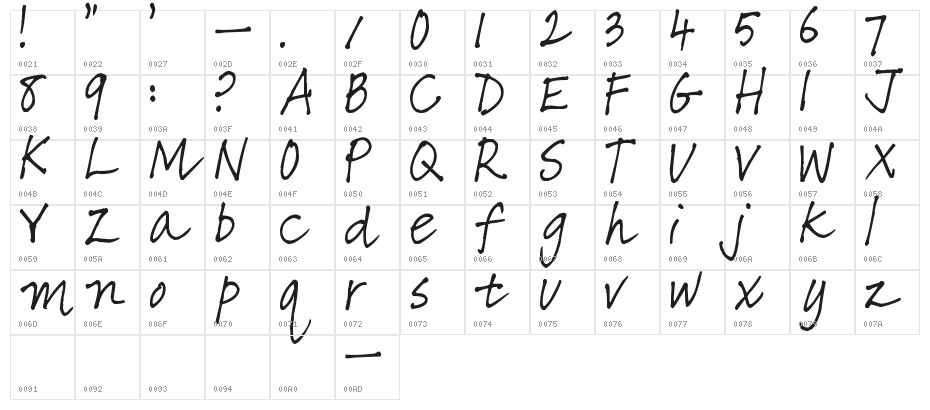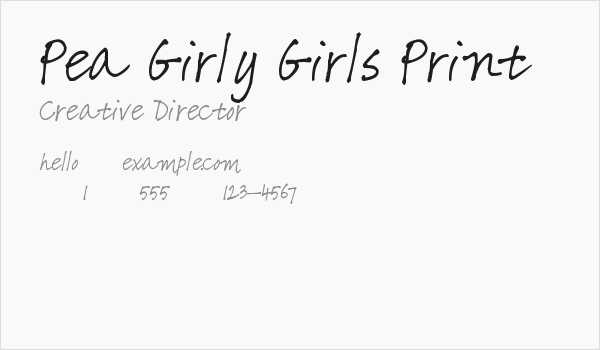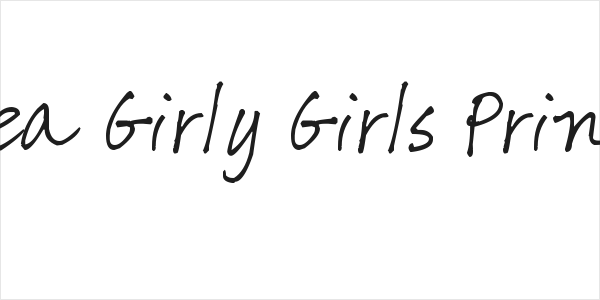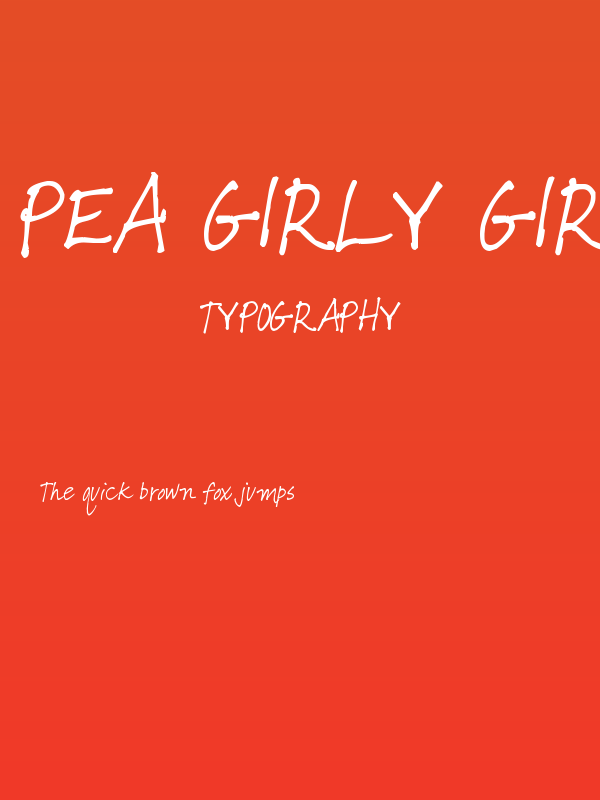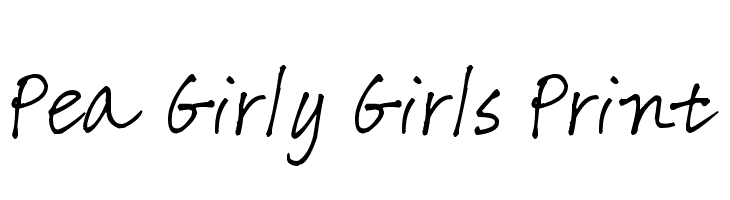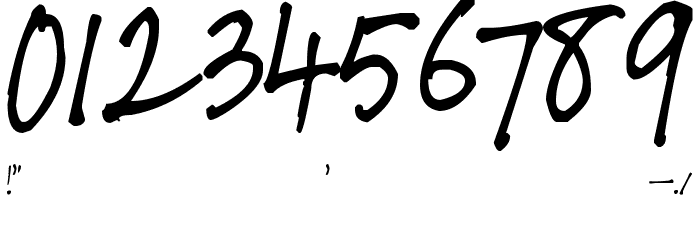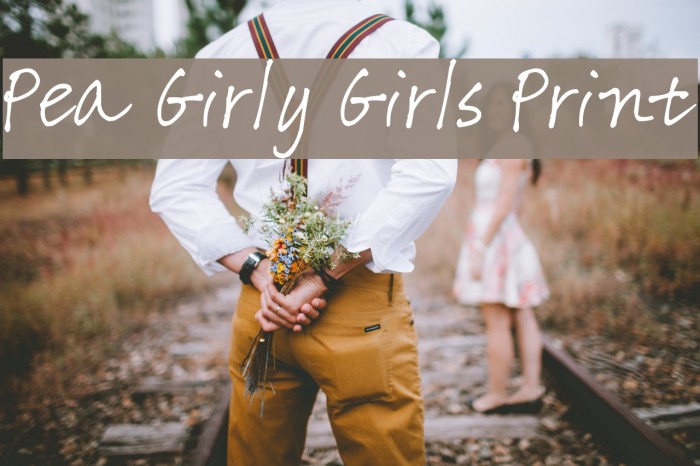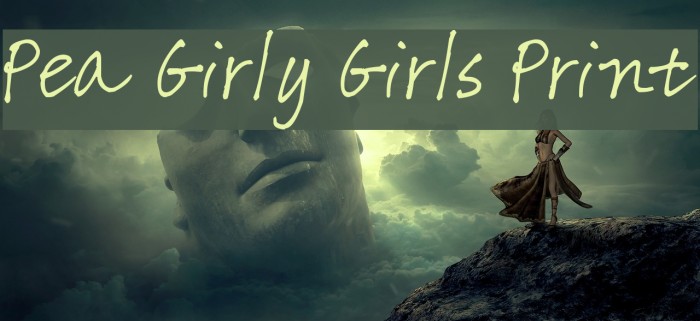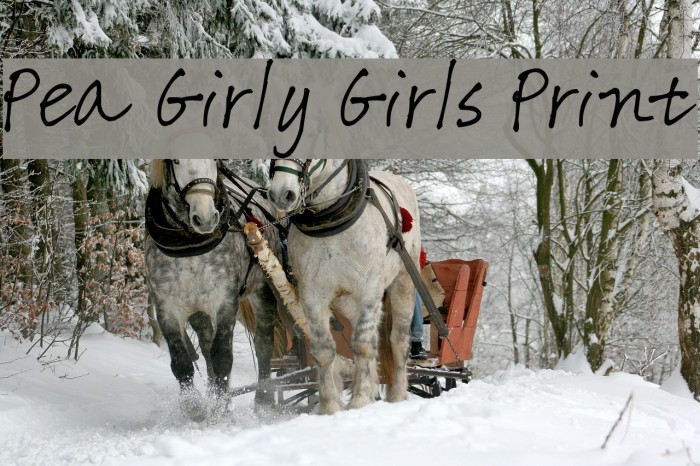
Pea Girly Girls Print Font
Pea Girly Girls Print Description
This playful and energetic font features a handwritten style with a casual, informal appearance. The letters are slightly slanted, giving it a dynamic and lively feel. The strokes vary in thickness, adding a touch of spontaneity and authenticity. It captures the essence of a personal note or a quick sketch, making it ideal for projects that require a friendly and approachable tone. The font includes both uppercase and lowercase letters, numerals, and a selection of punctuation marks, ensuring versatility in its application.
| Overall Style | Casual, Playful |
| Use Case | Headlines, Informal text, Creative projects |
| Proposed Projects | Ideal for greeting cards, personal blogs, children's books, and playful branding. |